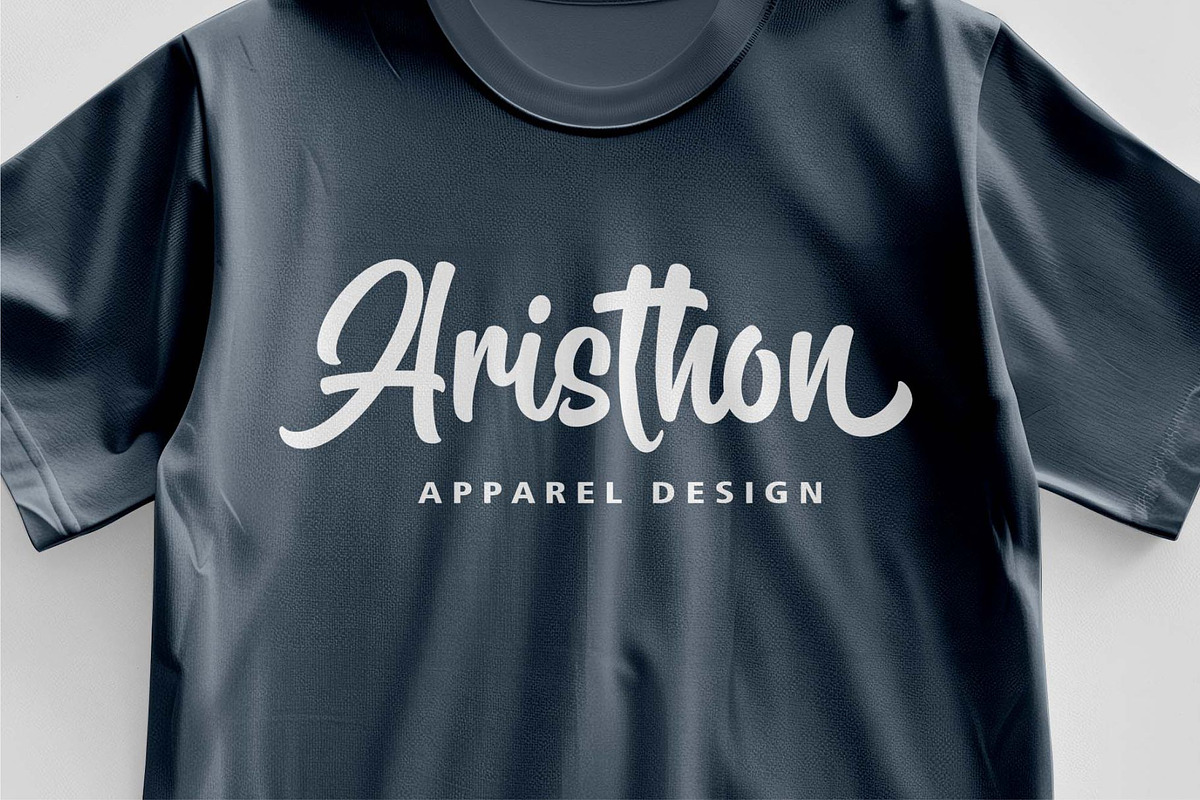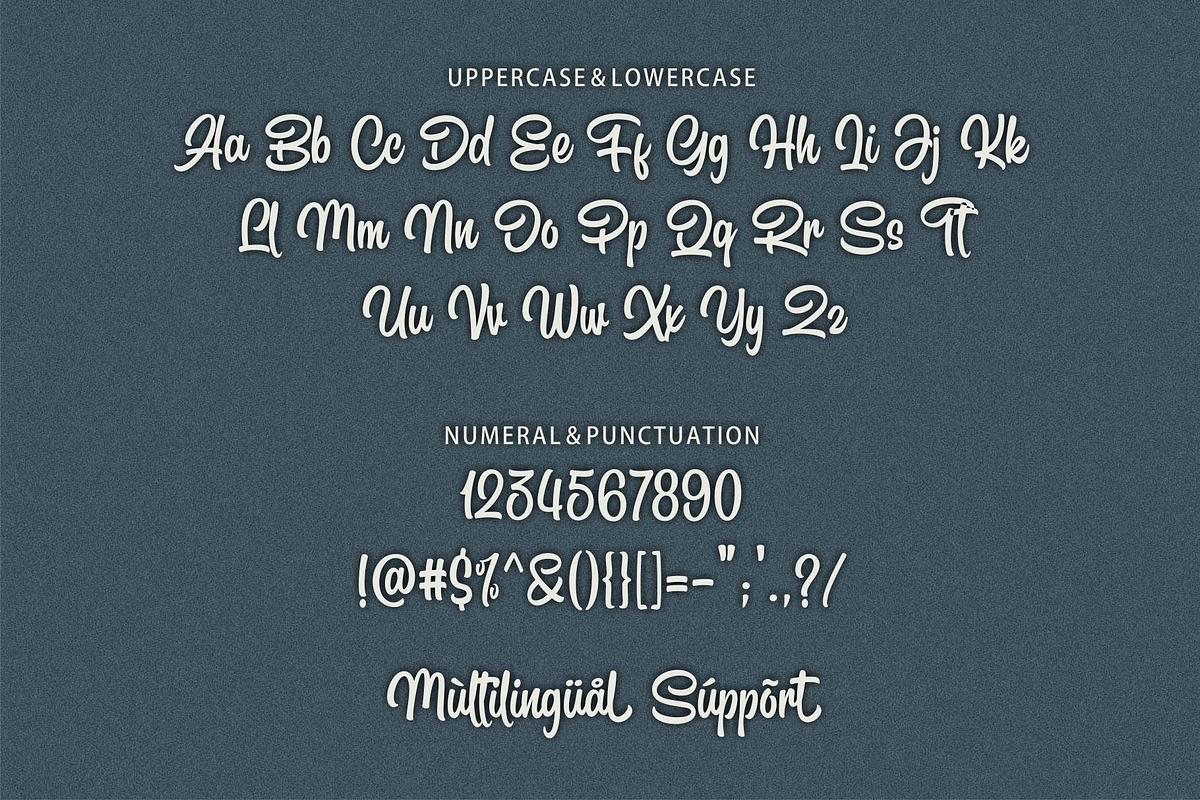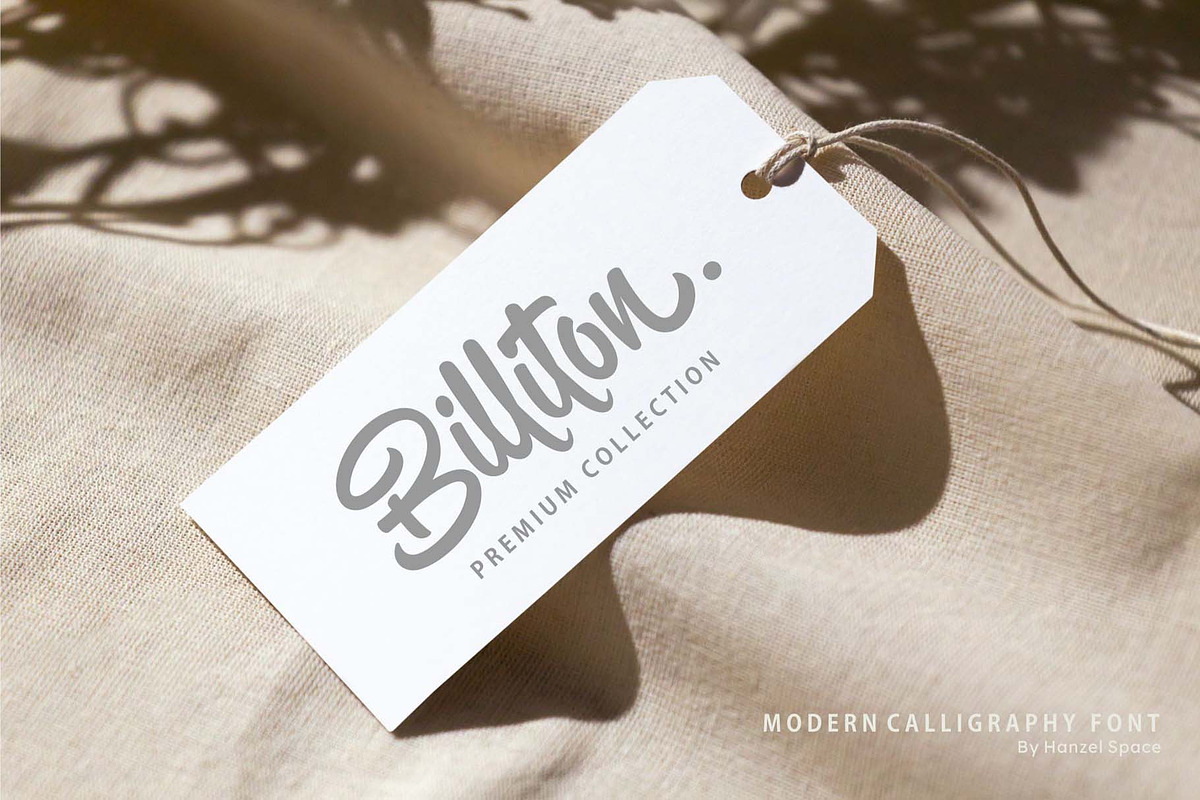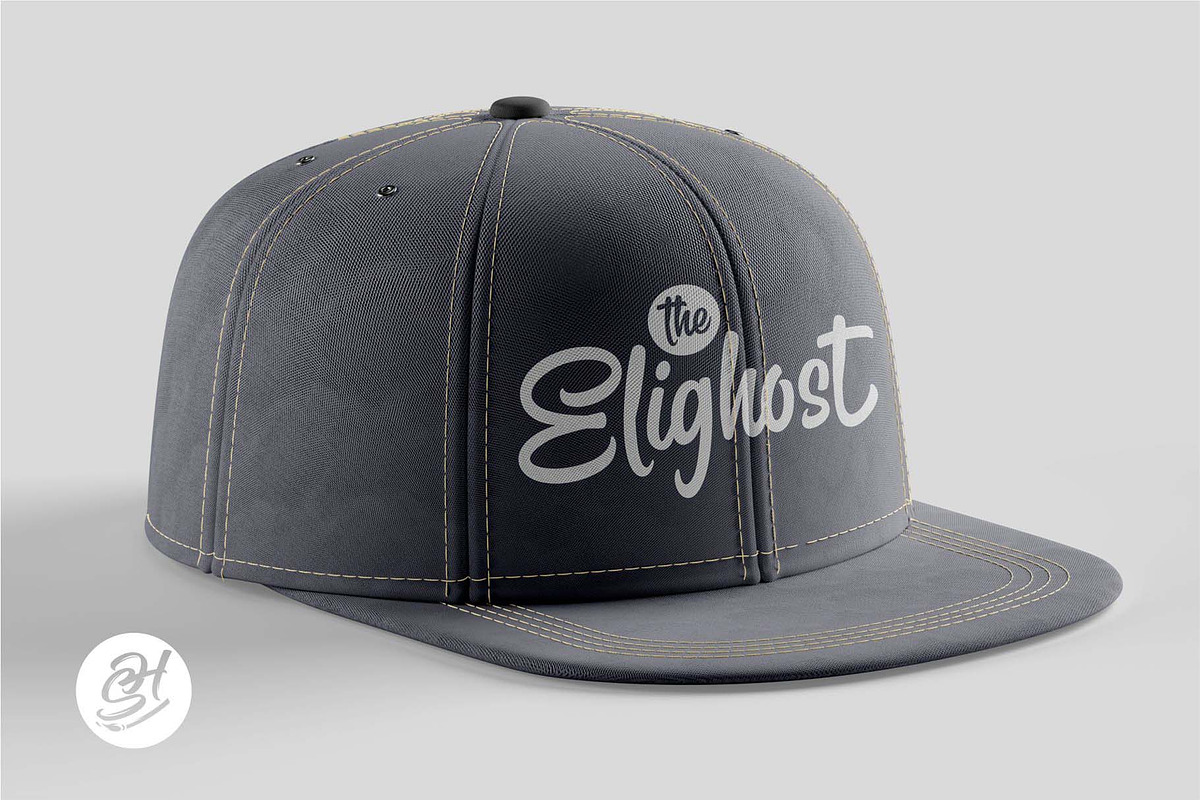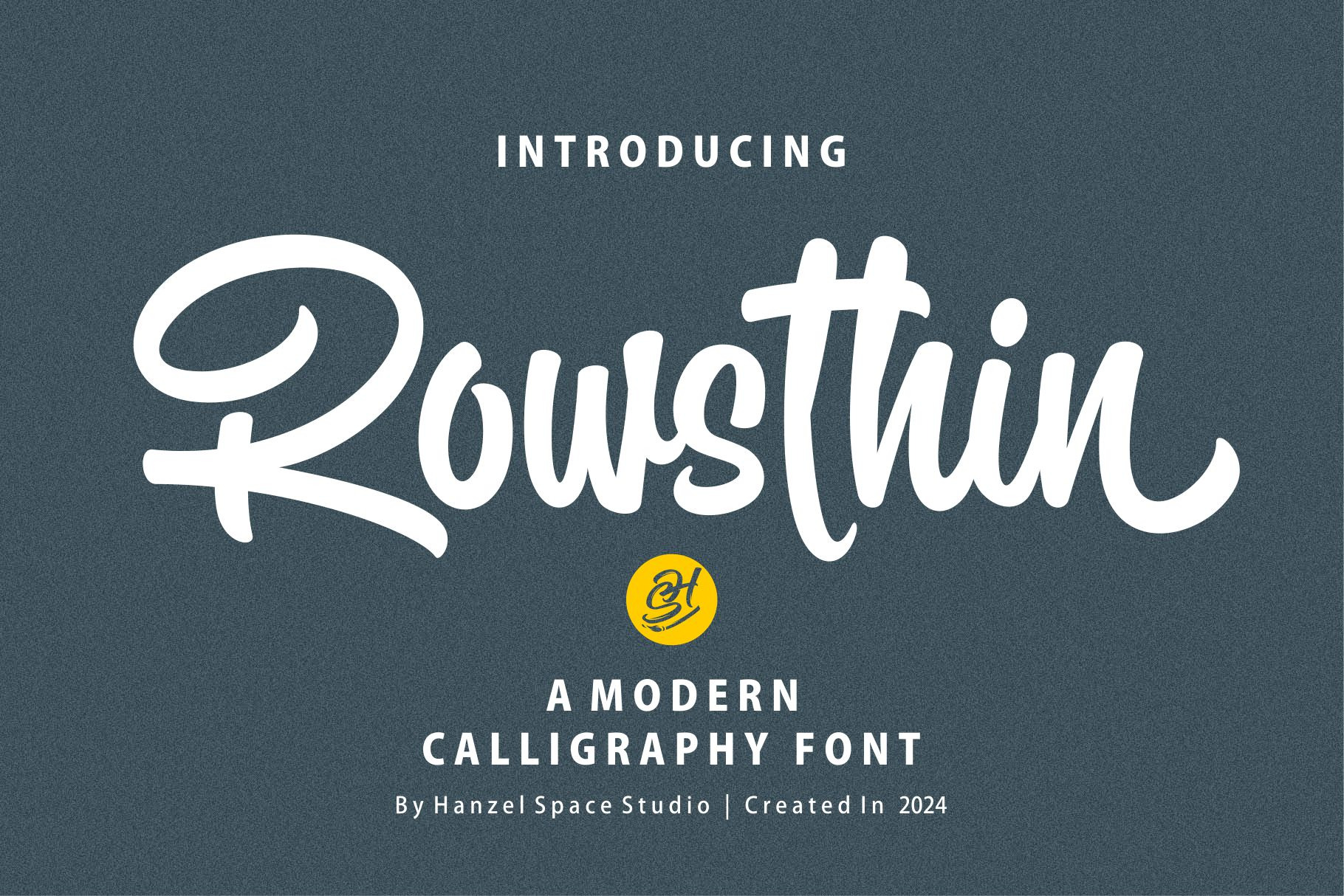
Rowsthin | A Modern Calligraphy Font
Rowsthin a Modern Calligraphy Font
Introducing Rowsthin Script Font. I created this font with a modern character style, has a different font anatomy character and looks attractive. This font looks elegant, cool, and unique.
This font was created to help you designing logotype or lettering style logo for your Brand or your clients, and you also can use it for designing all of the graphic stuff such as badge, sign, packaging, headline, title, T-shirt/apparel,bPoster, etc.
Rowsthin was designed for personal characters such as strong, confidence, dynamic, readable, Energic, dynamic, etc.
Multilanguage
Ending Swash